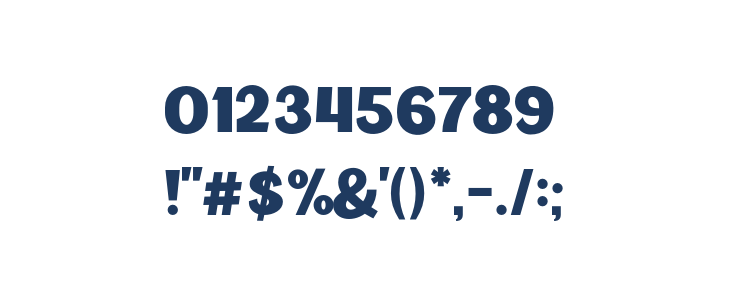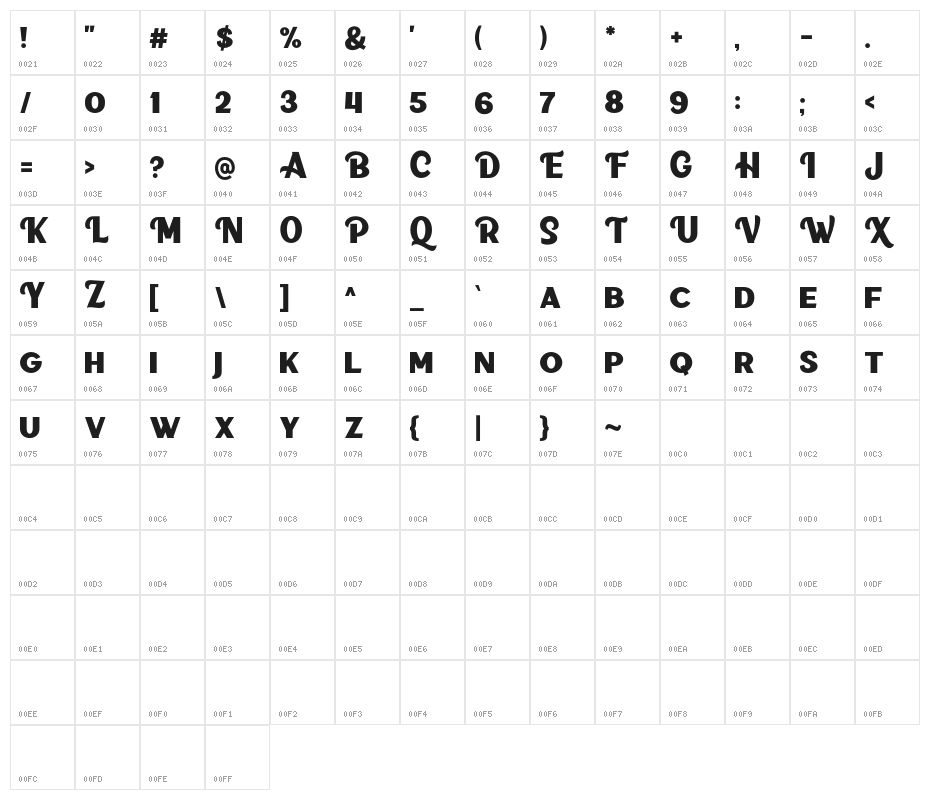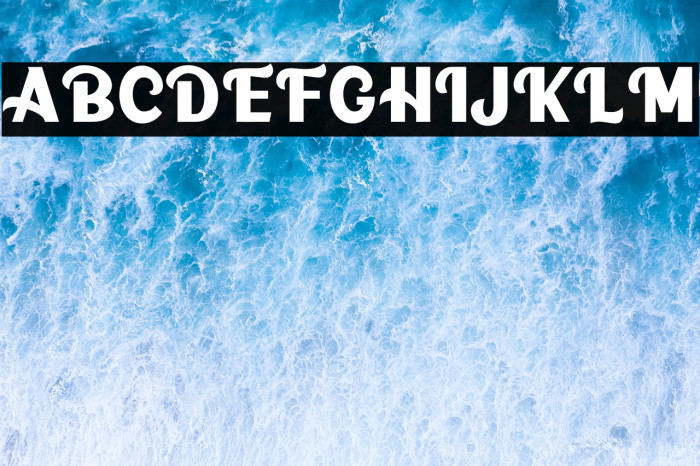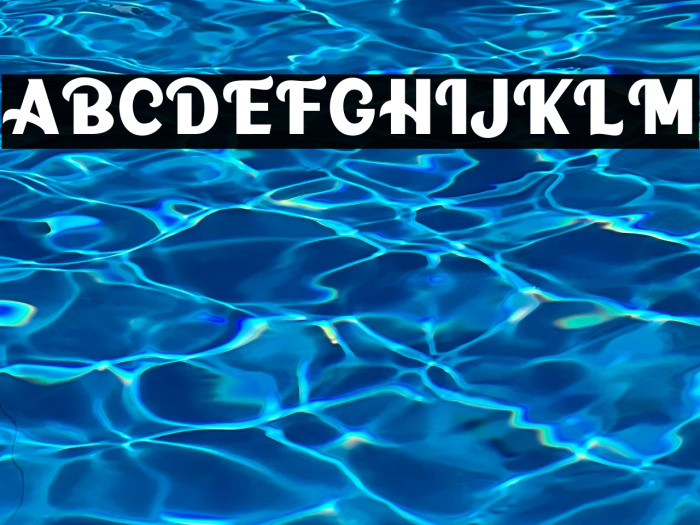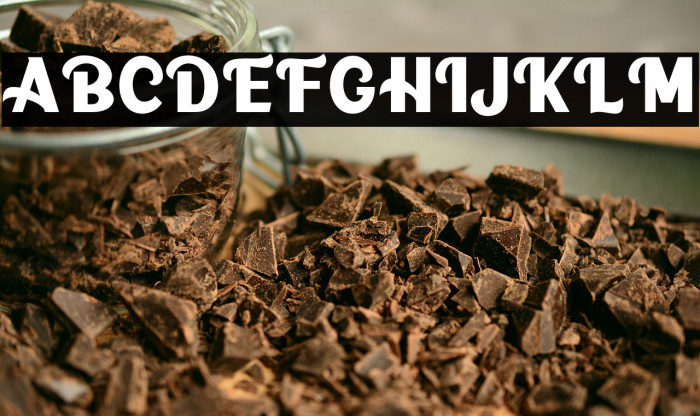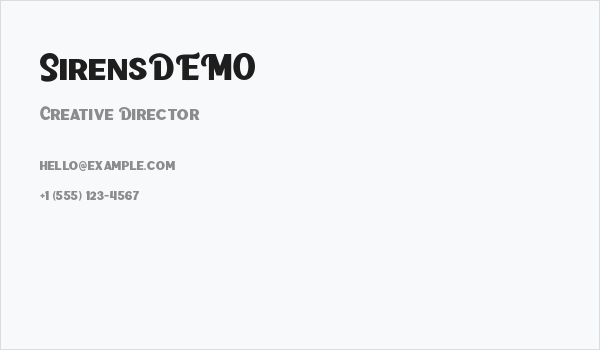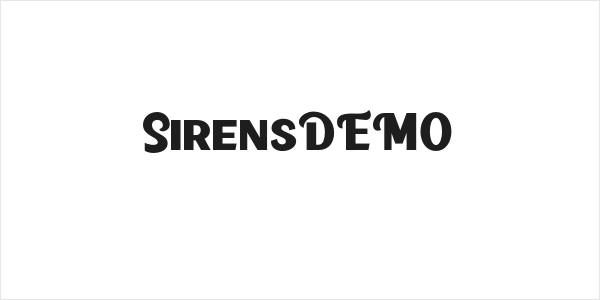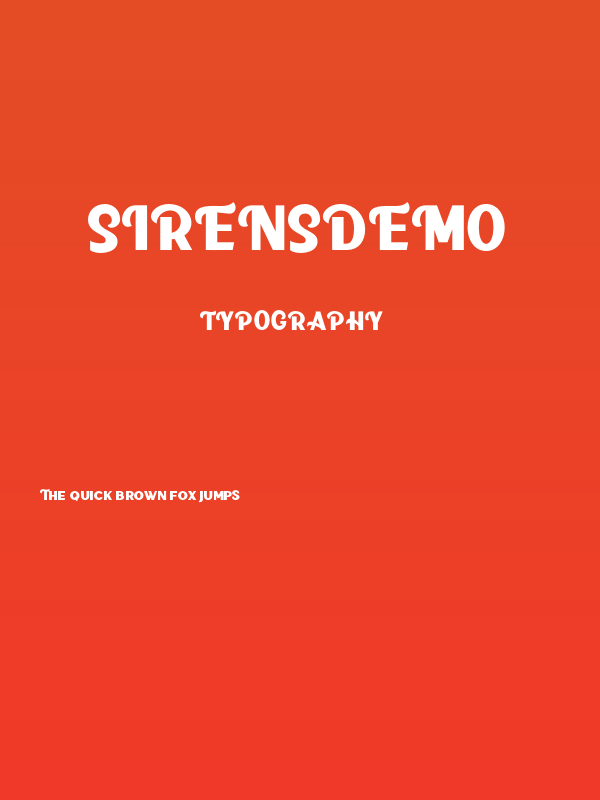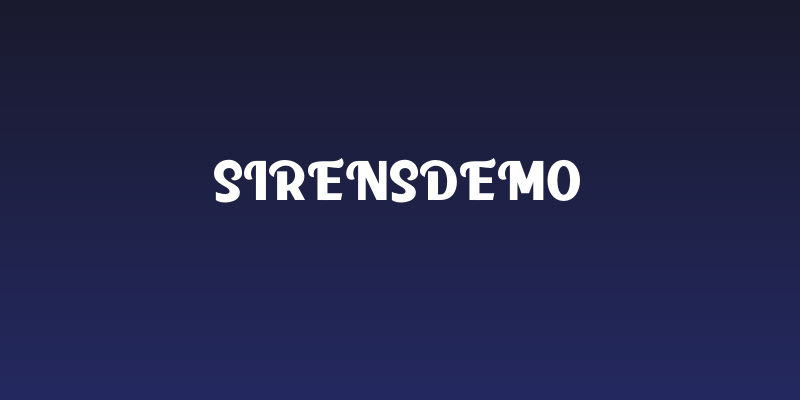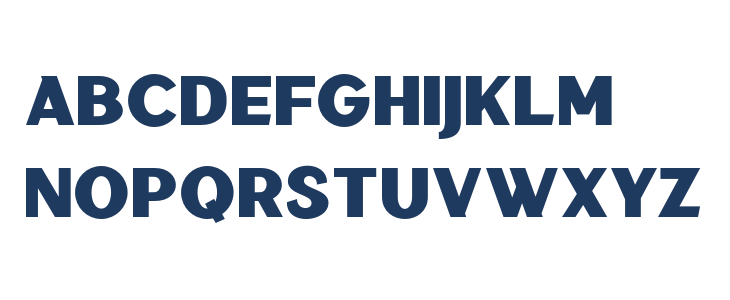
SirensDEMO Font
SirensDEMO Description
This font features a bold and dynamic style with a strong presence. The uppercase letters are characterized by thick strokes and a slight curvature, giving them a unique and eye-catching appearance. The lowercase letters maintain a consistent weight, ensuring readability while adding a touch of elegance. The numerals are robust and easily distinguishable, making them suitable for various applications. Special characters are designed with the same boldness, ensuring they stand out. This font is ideal for projects that require a strong visual impact.
Proposed ProjectsIdeal for branding, headlines, posters, and advertising materials that require a strong visual impact.